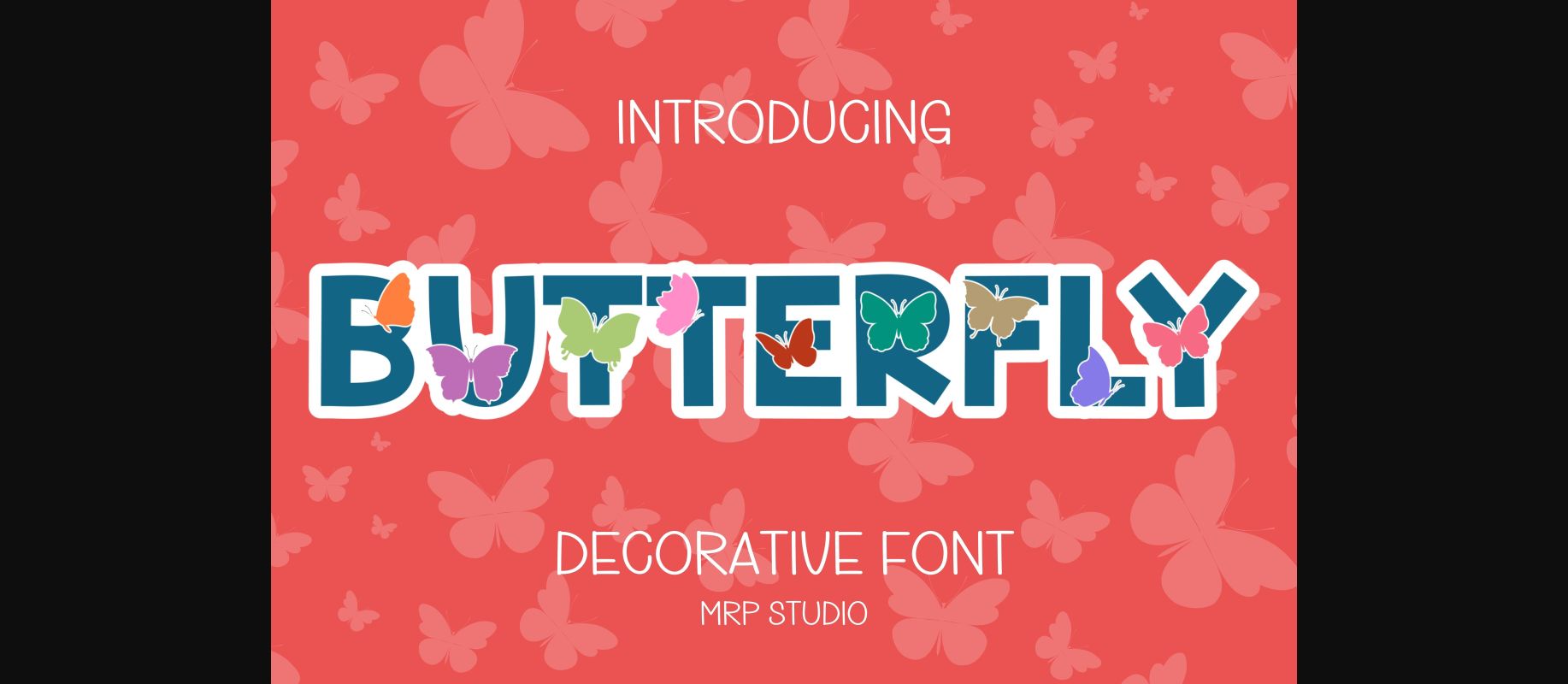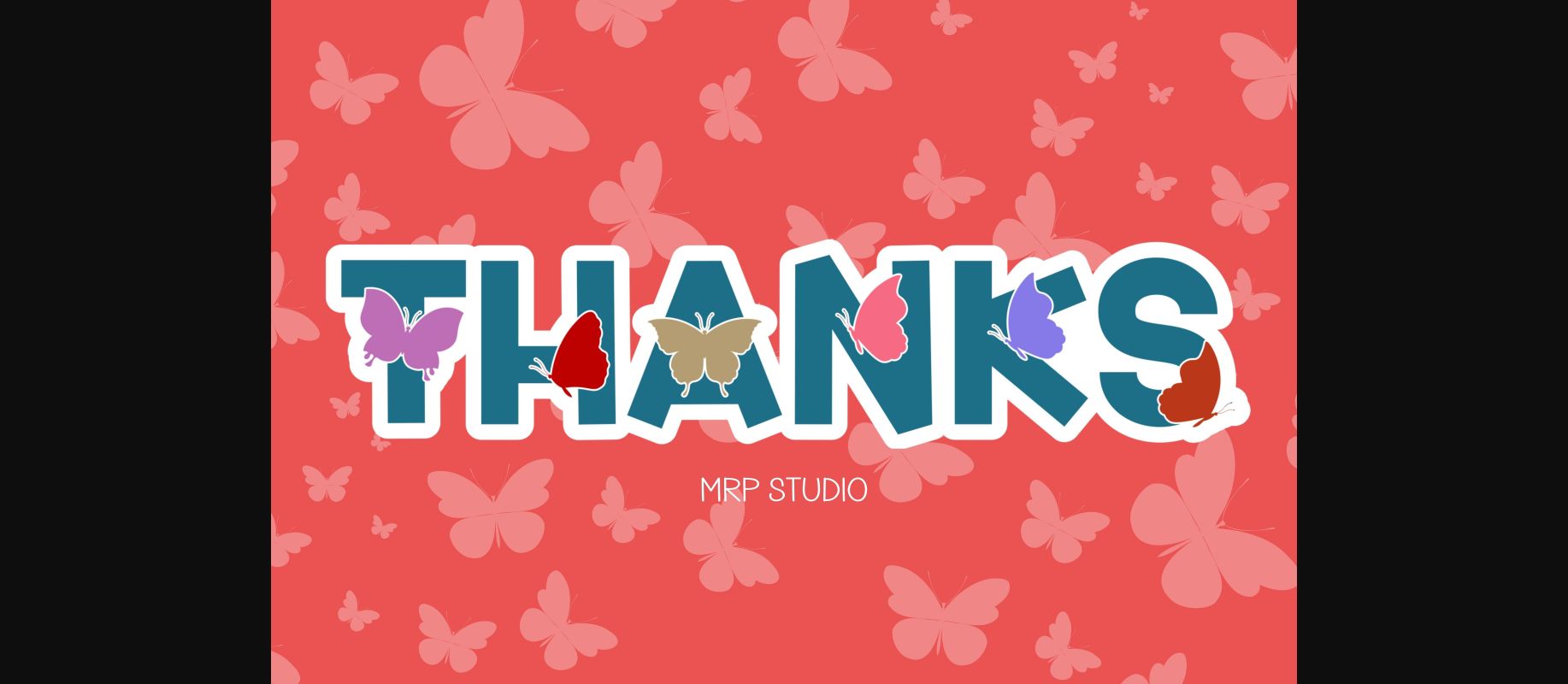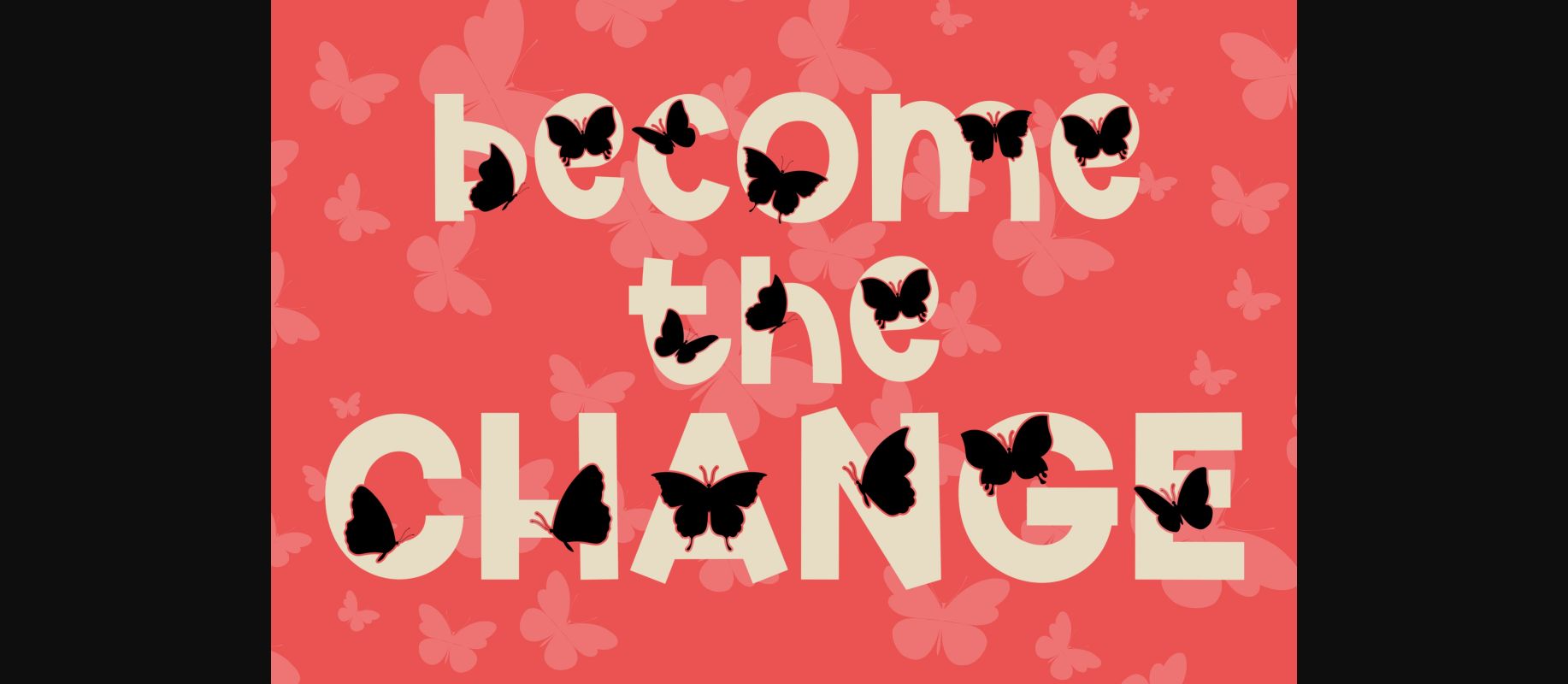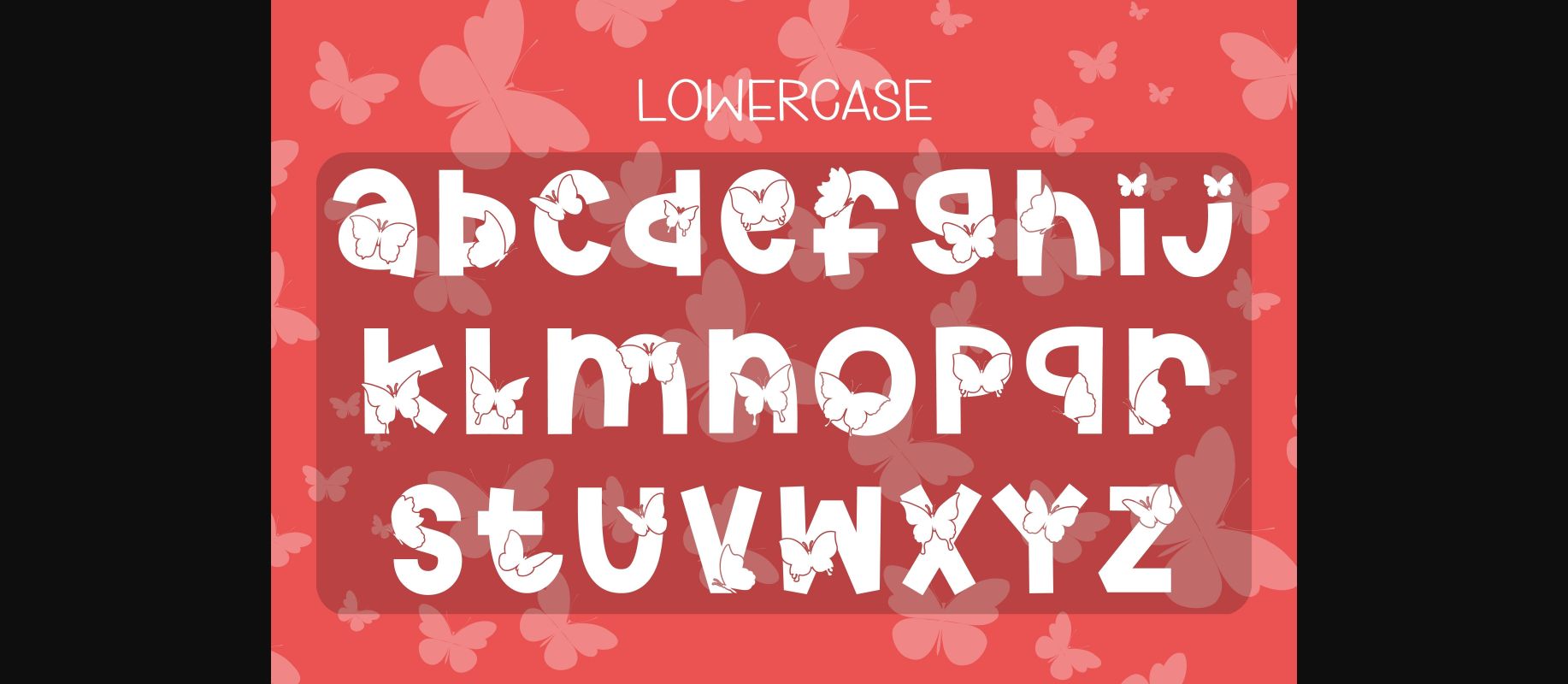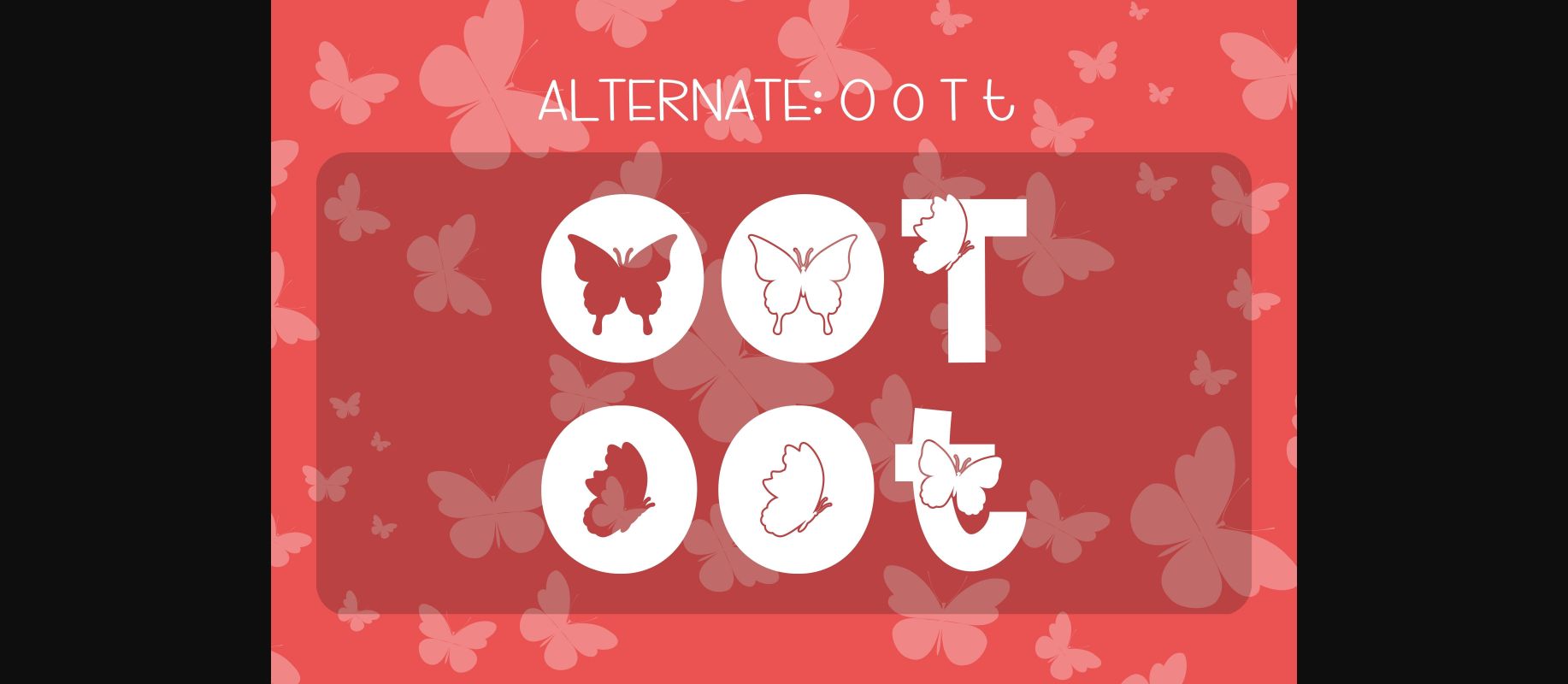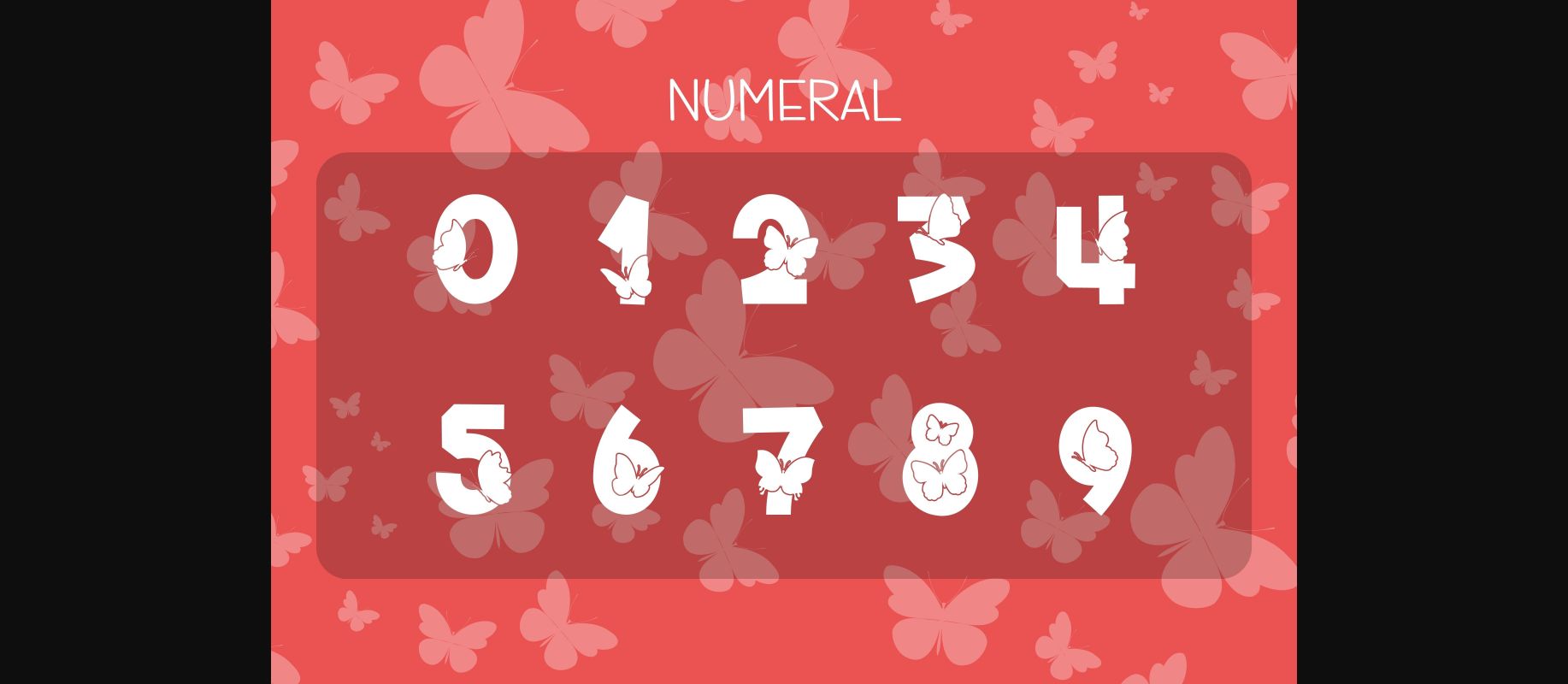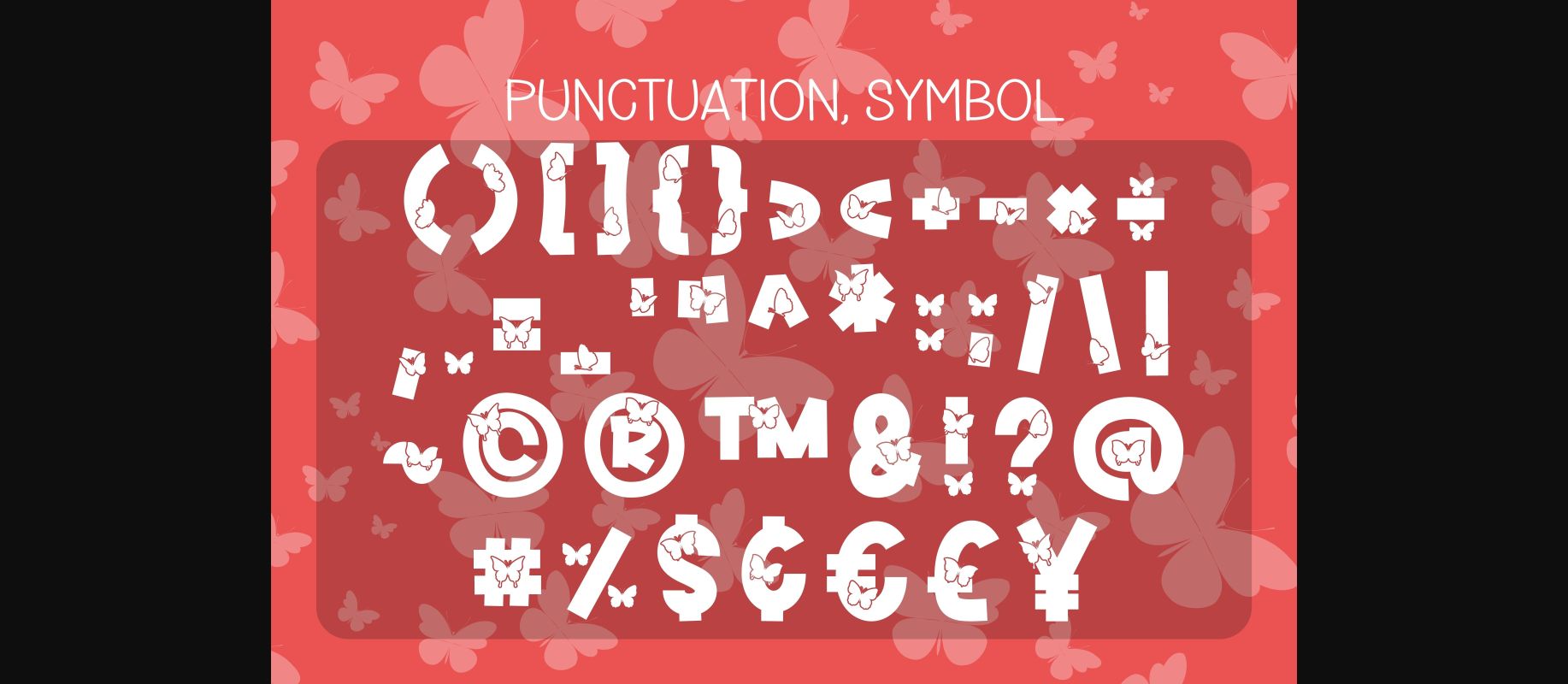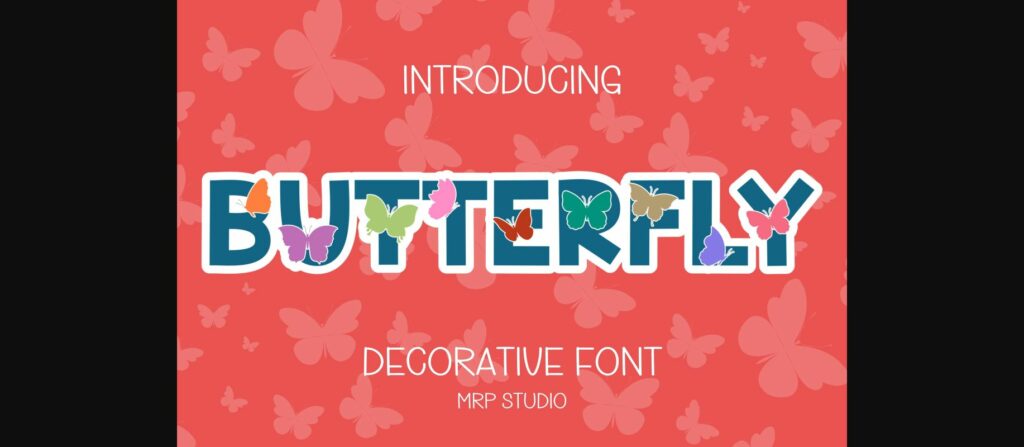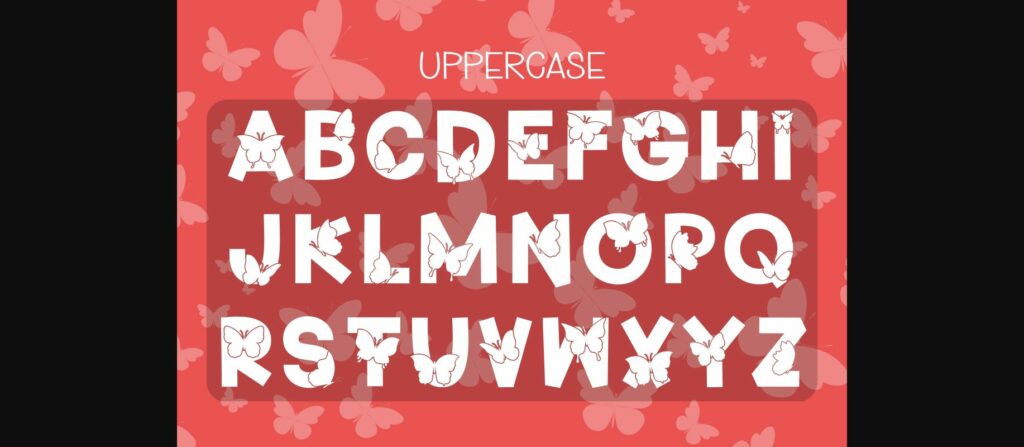
Butterfly is a cute and lovely decorative font that features tiny butterflies inside the letters. With its whimsical charm and playful design, this font is perfect for conveying a sense of warmth and affection. Whether itβs for greeting cards, childrenβs books, or product packaging, βButterflyβ will bring a touch of sweetness and joy to your project.